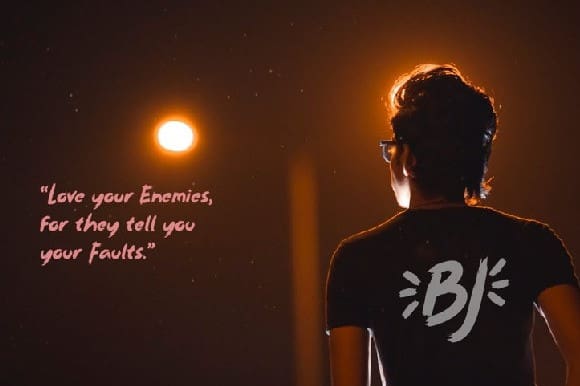
Bromph Town Font
Bromph Town Font is a cool and paint brushed display font. This font can be used for various street styled needs, crafts and informal designs. Its playfulness make it great for creative projects, such as posters, book titles, movie titles, and various other needs.